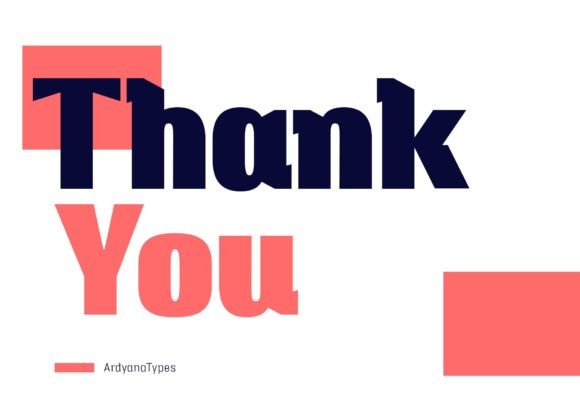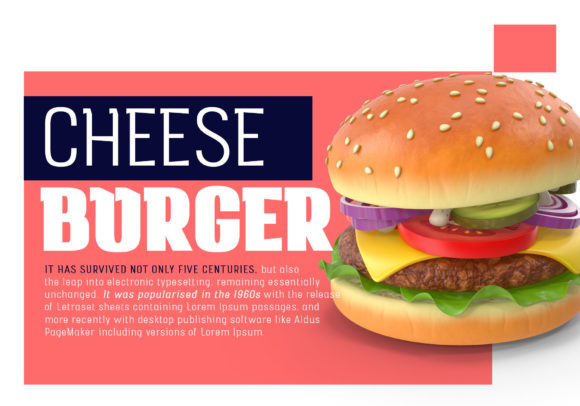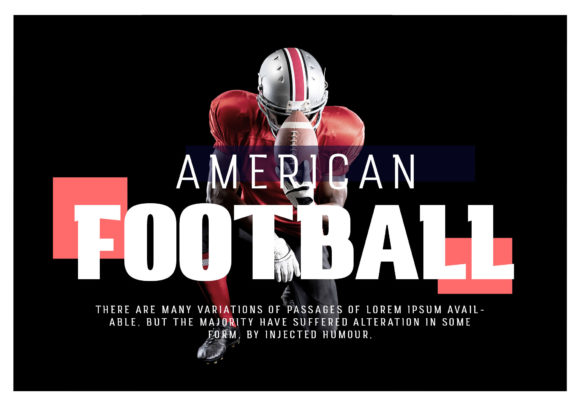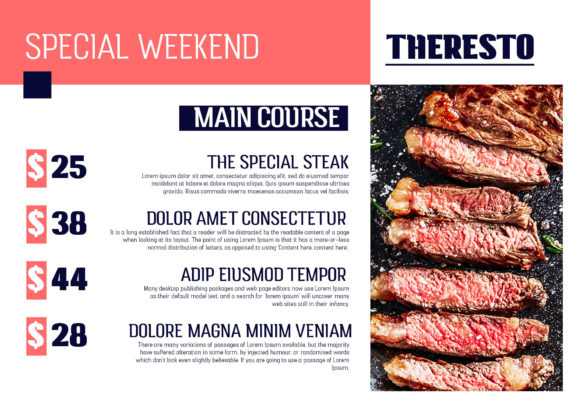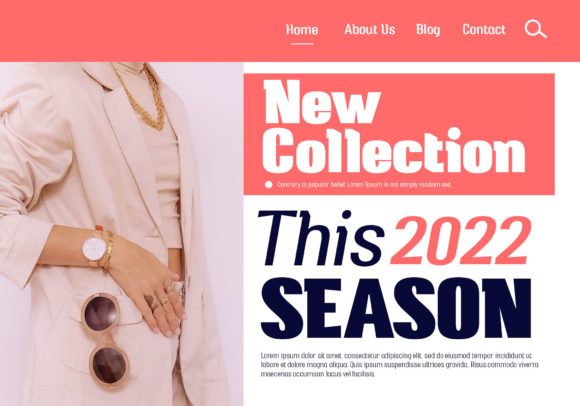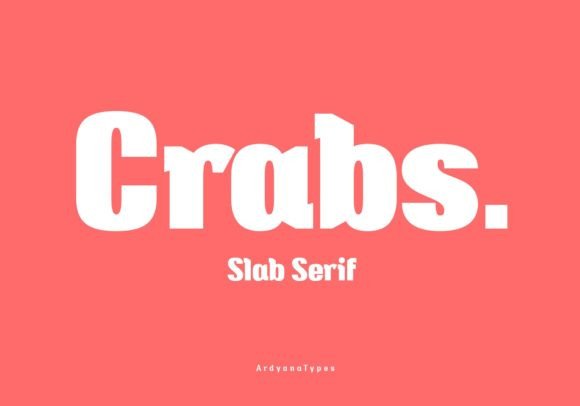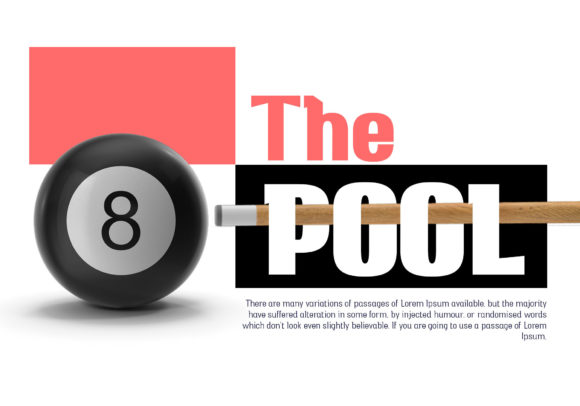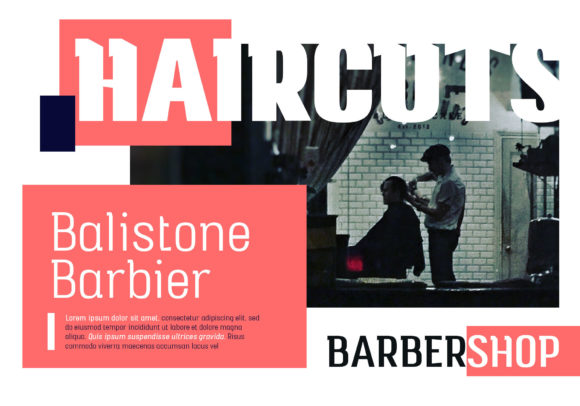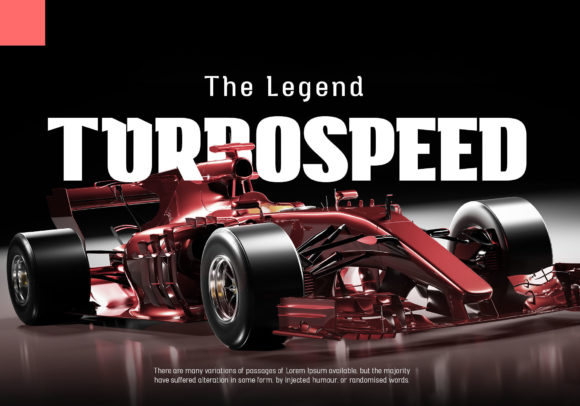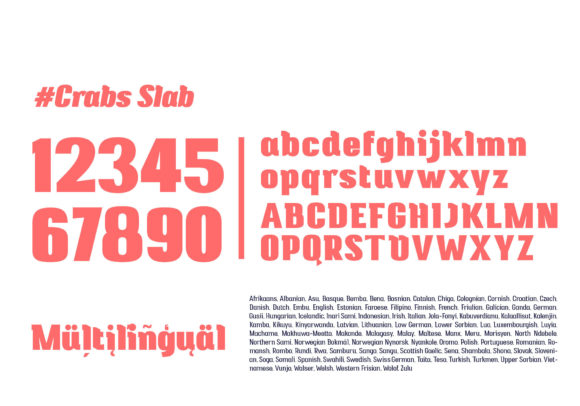
Crabs Font
Crabs: A Unique and Elegant Slab Serif Font
Crabs is a slab serif font that combines modern, retro, and classic styles with a unique and elegant feel. Its sturdy and elegant typography gives an extraordinary impression, making it suitable for various projects including sports, posters, products, logos, branding, and more. With support for multiple languages, Crabs Slab is versatile enough for all your creative needs.
Key Features of Crabs
• Slab Serif Style: Offers a strong and elegant look typical of slab serif fonts.
• Versatile Design: Combines modern, retro, and classic elements for wide application.
• Multilingual Support: Enables use in projects across different languages.
• Unique Character: Provides an extraordinary impression to stand out in designs.
Ideal Uses for Crabs
Crabs’ unique characteristics make it particularly well-suited for:
When incorporating Crabs into your designs, consider these tips:
• Use for headlines or short blocks of text to showcase its unique style.
• Utilize its versatility across various creative projects to enhance visual appeal.
Crabs is an excellent choice for designers looking to add a unique and elegant slab serif font to their typographic toolkit. Its ability to blend modern, retro, and classic styles makes it stand out in the world of typography. Whether you’re working on sports branding, creating posters, or developing product packaging, Crabs offers the perfect blend of strength and elegance.
Furthermore, Crabs’ unique design allows it to shine in various contexts. From contemporary layouts to more traditional designs that need a touch of uniqueness, this font can elevate your projects. Its striking yet functional style works particularly well in designs that require a thoughtful and engaging mood.
In conclusion, Crabs is a font that truly captures the essence of creativity and impact in typography. Its ability to work well in both bold projects and more refined layouts showcases its flexibility. For those looking to add a touch of unique charm to their work, Crabs can enhance themed creations with its distinctive style. It’s the perfect choice for designers seeking to make a strong, stylish impact across a wide range of creative projects.